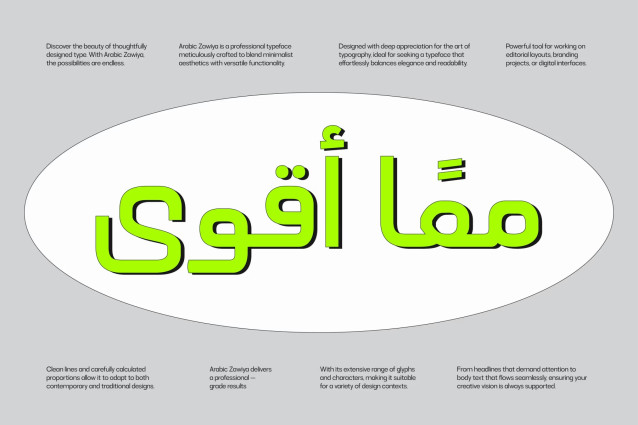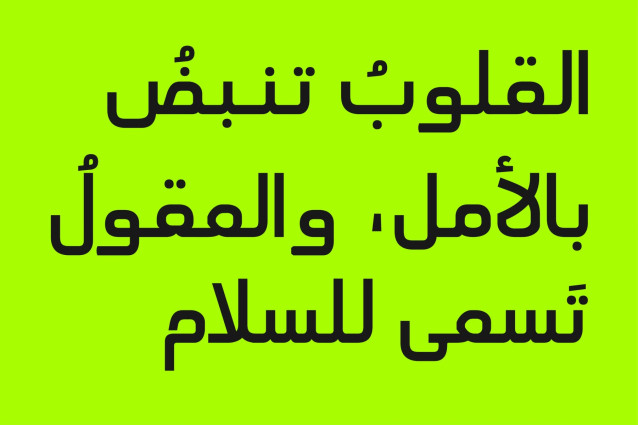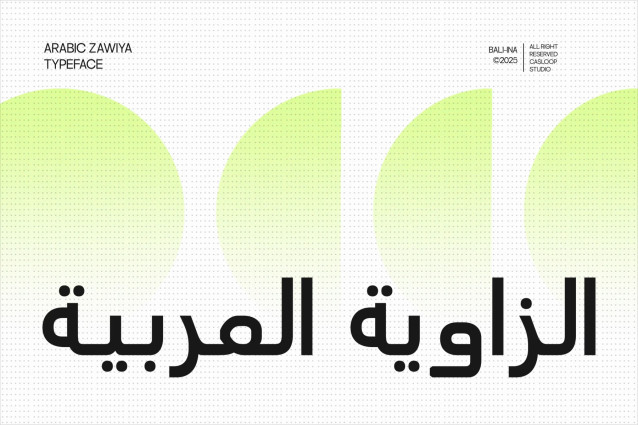
Introducing Arabic Zawiya Typeface – Tradition Meets Minimalist Vibes Say hello to Arabic Zawiya Typeface, your new go-to Arabic font that effortlessly blends the beauty of traditional calligraphy with a clean, modern look. Whether you’re designing for brands, creating stunning layouts, or crafting something truly unique, Zawiya has your back with style and precision.